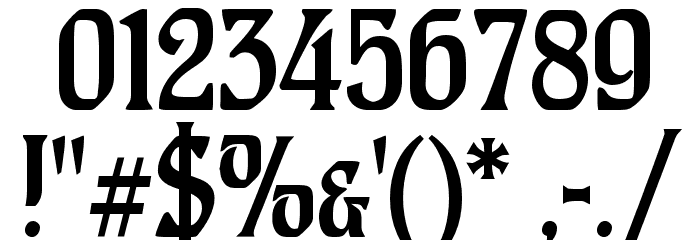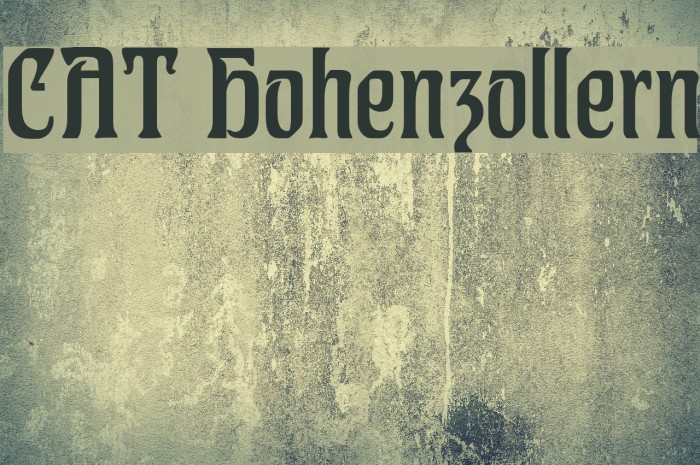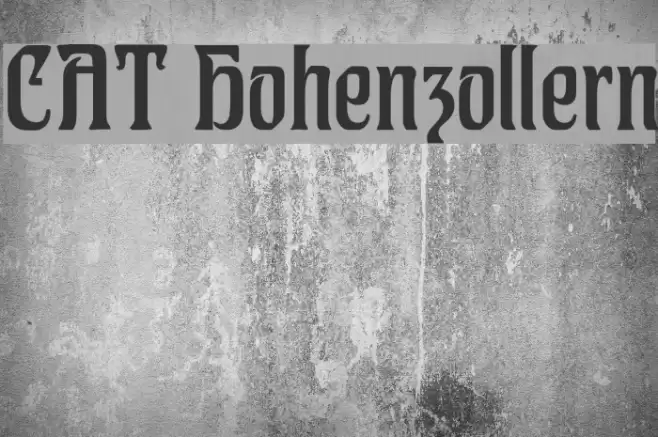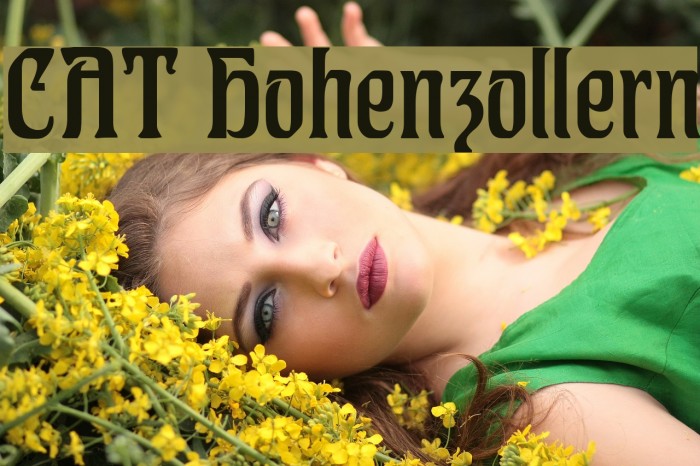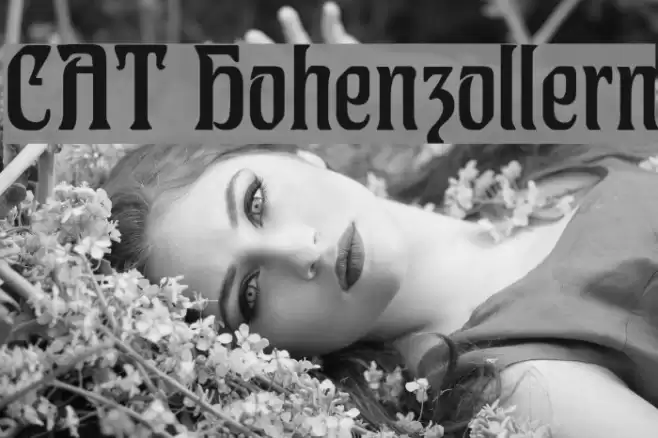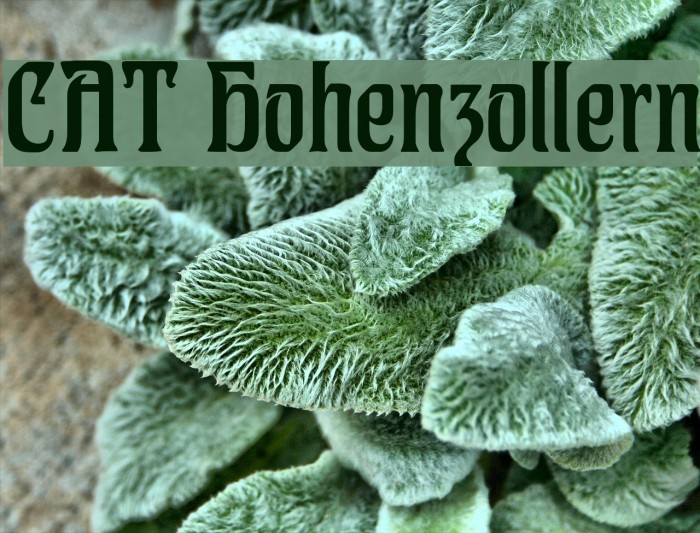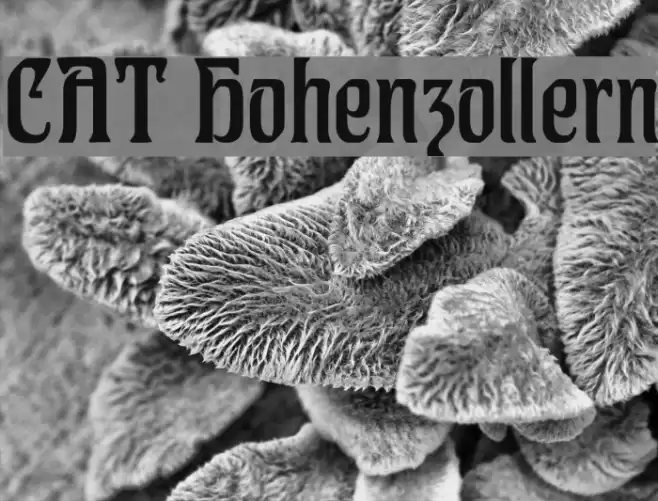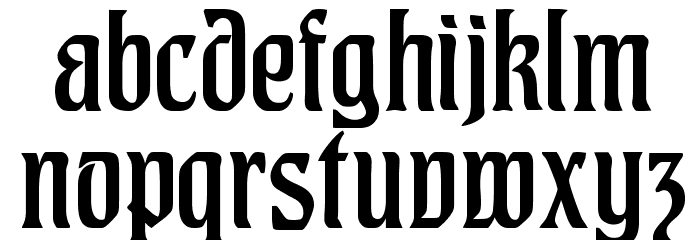
CAT Hohenzollern Font
CAT Hohenzollern Description
This font features a bold and striking design with a strong blackletter influence. The characters are characterized by sharp, angular lines and a distinct medieval aesthetic. The uppercase letters are particularly ornate, with intricate detailing that adds to the overall dramatic effect. The lowercase letters maintain the same stylistic elements, ensuring consistency throughout the typeface. Numbers and special characters are designed to match the bold and decorative style, making them suitable for attention-grabbing headlines and titles. The font's unique appearance makes it ideal for projects that require a historical or gothic touch.
| Overall Style | Vintage |
| Proposed Projects | Ideal for historical-themed designs, gothic posters, book covers, and branding that requires a dramatic flair. |